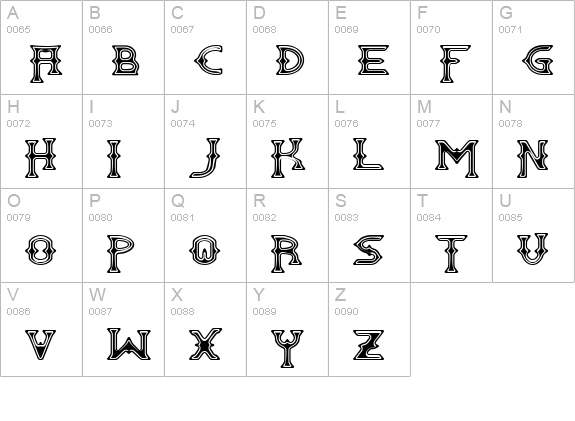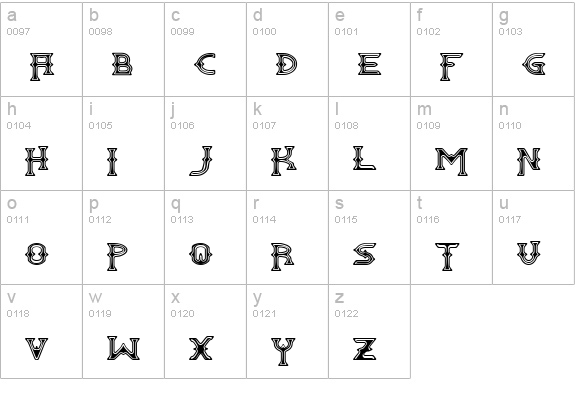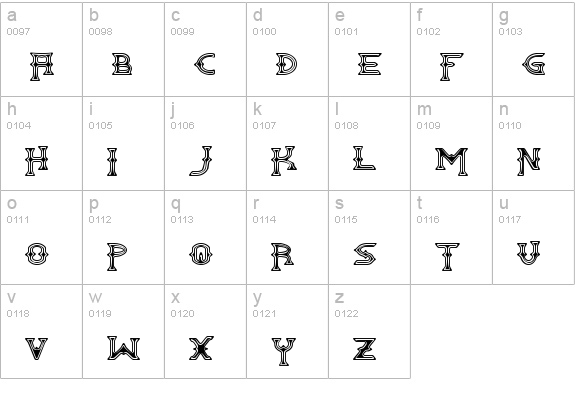
Gawain Font Details
Gawain font is a charming and elegant typeface that exudes sophistication and style. With its delicate curves and graceful lines, Gawain is perfect for adding a touch of class to any design project. This versatile font is ideal for a wide range of applications, from branding and packaging to invitations and signage. The best part? Gawain font is completely free to download at FontsMarket.com. Whether you're a professional designer looking for a new go-to font or a hobbyist wanting to add a special touch to your creations, Gawain is the perfect choice. Download it today and elevate your designs with this timeless and beautiful typeface.